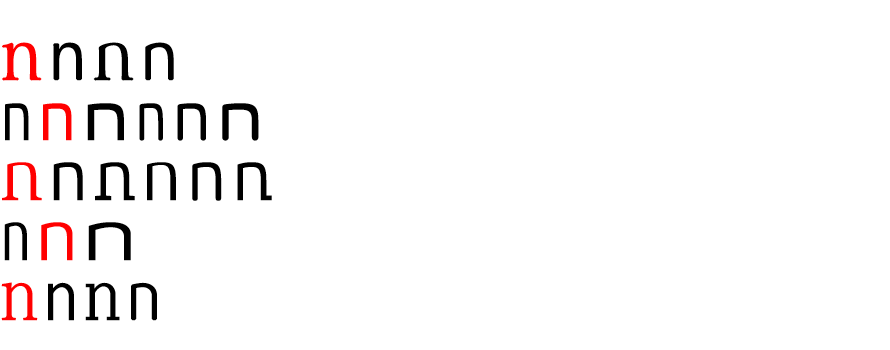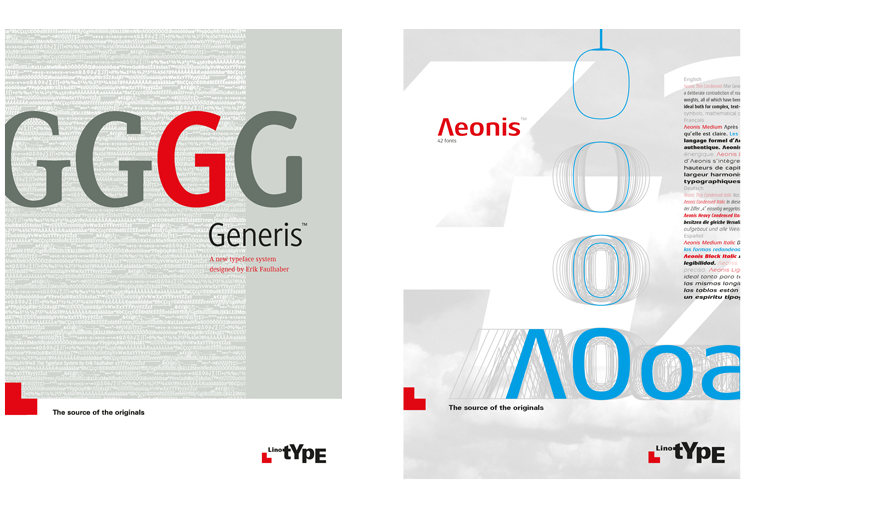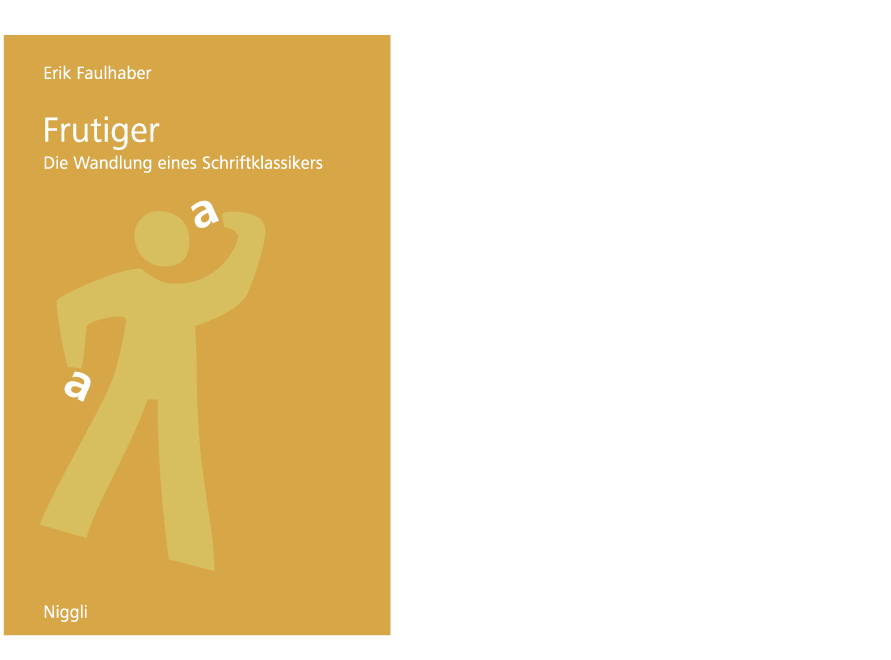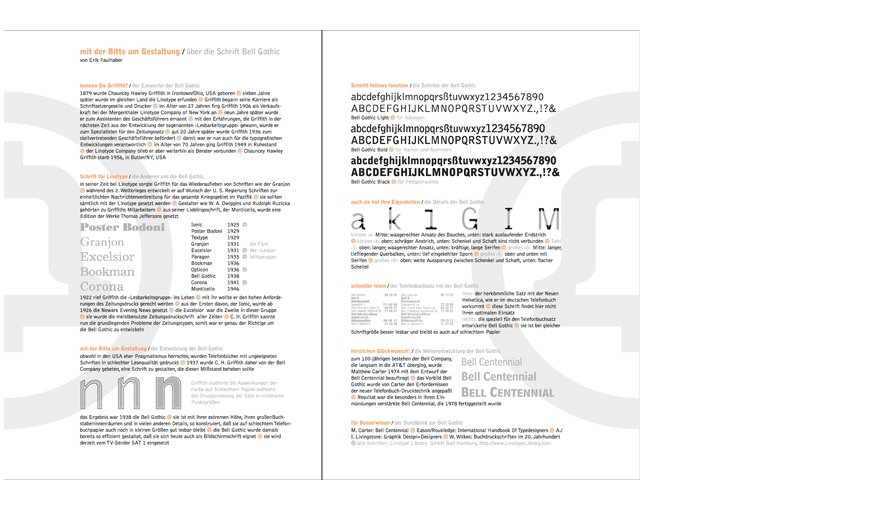
Erik Faulhaber
Designer
»There are common themes that run through each of Erik Faulhaber’s typeface designs: breadth of family size, applicability to a wide range of uses, and a search for character perfection.« (Allan Haley)
Erik Faulhaber is a German designer specialising in type design, working independently since 1996.
Graphic design studies at the Karlsruhe University of Arts and Design, graduating with honours, with teaching by Kurt Weidemann. Type design training at Linotype under Reinhard Haus, with mentorship by Adrian Frutiger, including collaboration with Hans Eduard Meier.
Typefaces include Generis (2006), Aeonis (2009), Xenois (2013), Quantis (2016) and Tensis (2021). Contributions to projects such as BMW Helvetica, Compatil, Frutiger Next, Heidelberg Gothic, IBM Helvetica, Microsoft Frutiger, Milano, Pinakothek Frutiger and Vialog.
Teaching at Bauhaus-University Weimar, Bergische Universität Wuppertal, Burg Giebichenstein University of Art and Design Halle, Folkwang University Campus Wuppertal and Hochschule Mannheim.
Brochure: Generis – A new typeface system designed by Erik Faulhaber. Published by Linotype 2006/2007. 40 pages, 210 x 280 mm. English and German text. Aeonis – 42 fonts. Published by Linotype 2010. 8 pages, 210 x 280 mm. English, French, Geman and Spanish text.
Publication: Frutiger – Die Wandlung eines Schriftklassikers. Foreword by Kurt Weidemann. Niggli Publisher (CH) 2004, ISBN 978-3-7212-0520-6. 106 pages, numerous b/w illustrations, hardcover 137 x 212 mm. German text.
Article: Mit der Bitte um Gestaltung – Über die Schrift Bell Gothic. Invers Magazine 4/1998. German text.